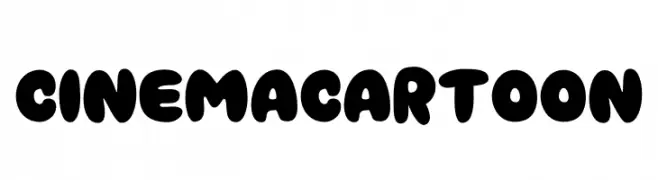
A playful, bold, and rounded font with a cartoonish style.
A casual, handwritten font with a dynamic and flowing style.
A bold, cinematic font with a vintage film reel aesthetic.
A bold, cinematic font styled like movie clapperboards.
Silhouette dingbat font with spy and action motifs.
A decorative font with whimsical, vintage cinema-inspired illustrations.